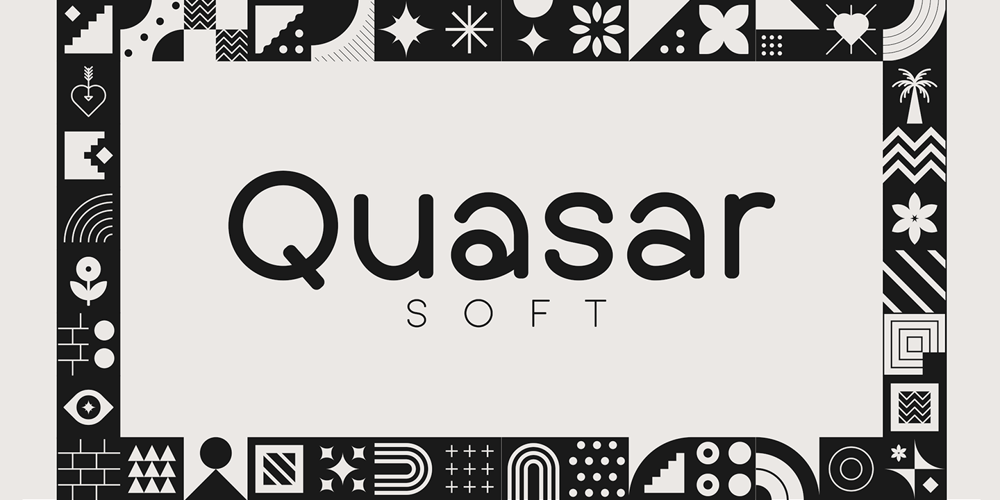
Quasar Soft Font Family was designed by Vladimir Fedotov, Plamen Petrov and published by VP Creative Shop. Quasar Soft contains 15 styles and family package options. Unleash your design potential with Quasar Soft, a remarkable typeface that seamlessly blends modern aesthetics with a touch of playfulness. With a collection of 11 fonts at your fingertips, including 5 versatile weights and captivating pattern font inspired by mosaic tiles, Quasar Soft offers an endless array of possibilities to breathe life into your project